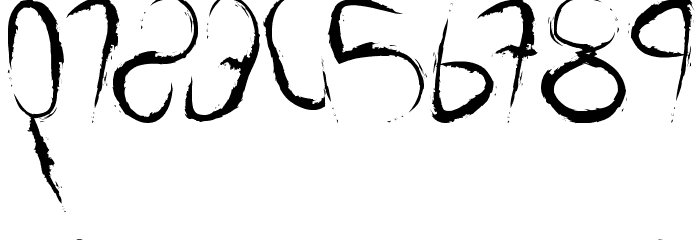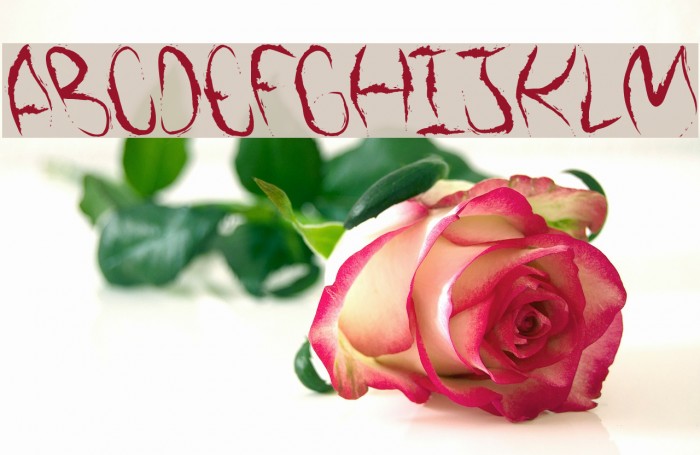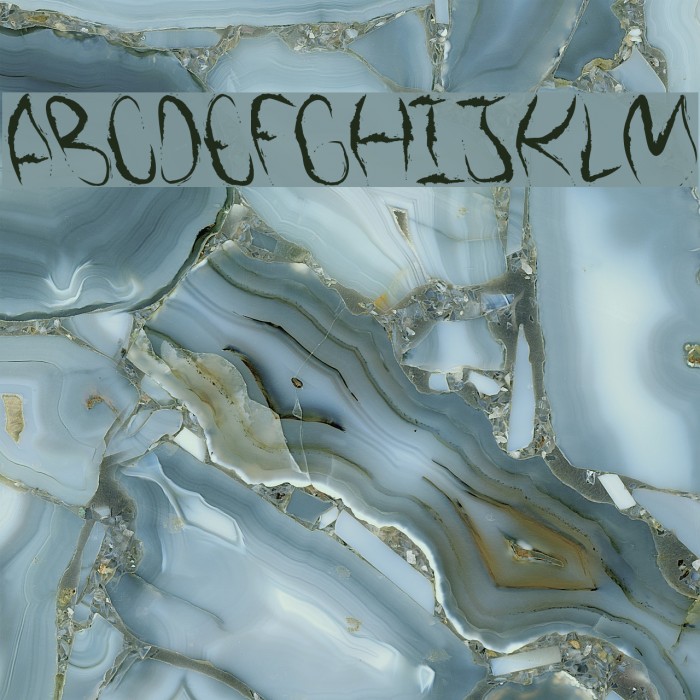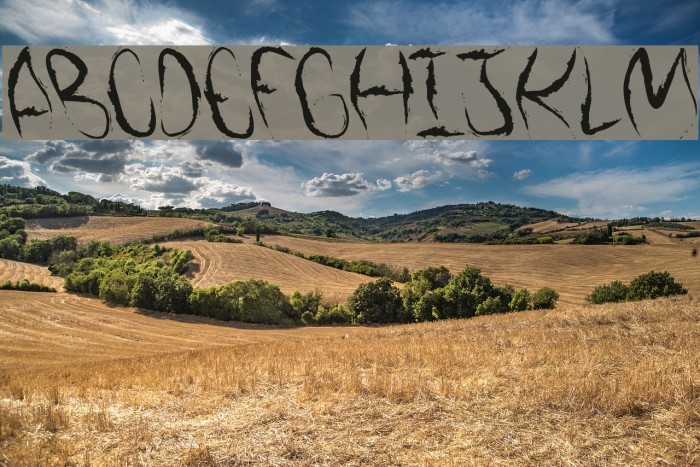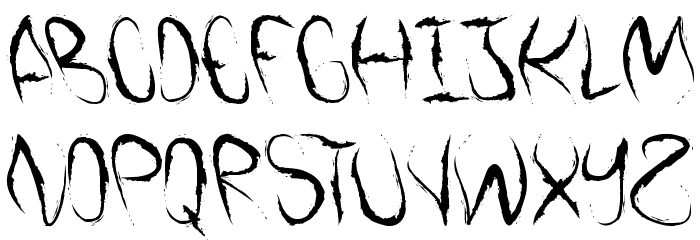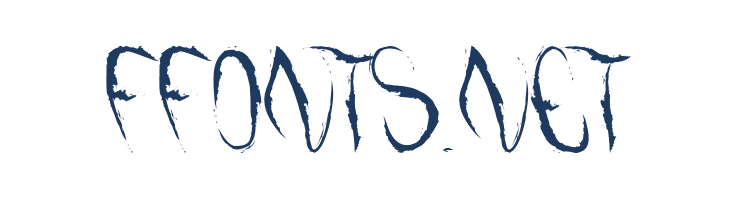
Vamos a la playa Font
Vamos a la playa Description
This font features a dynamic and expressive style, characterized by its brush-like strokes and irregular edges. The letters have a hand-drawn appearance, giving them a raw and artistic feel. The uppercase and lowercase letters maintain a consistent flow, with some letters exhibiting unique flourishes and curves. The numbers and special characters follow the same aesthetic, ensuring a cohesive look across all elements. This font's organic and energetic design makes it stand out, perfect for projects that require a bold and creative touch.
Overall StyleArtistic, Expressive, Raw
Use CaseHeadlines, Logos, Posters
Proposed ProjectsIdeal for artistic posters, album covers, creative branding, and expressive design projects.